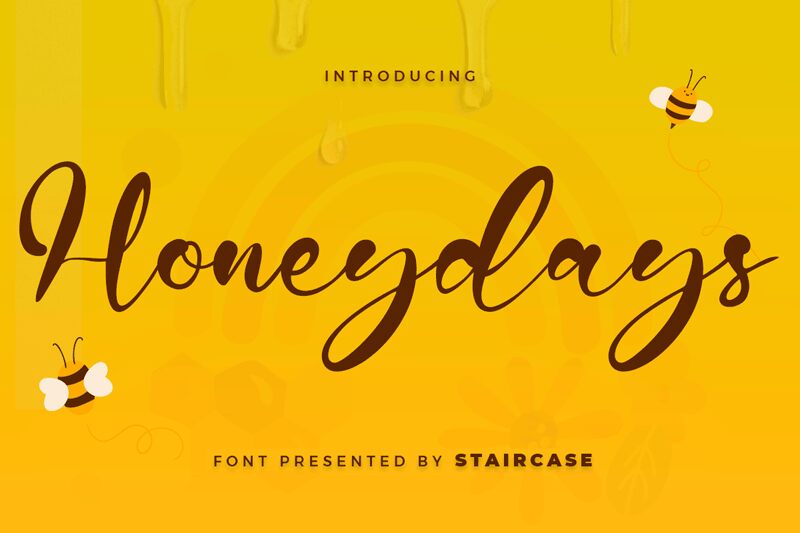
Honeydays
Honeydays is a stunning semi-light font by Staircase Studio, crafted with a cool handwritten style that will add a touch of whimsy to any project. Its delicate curves lend an air of elegance and playfulness, making it perfect for everything from wedding invitations to children's books. With its effortless charm, Honeydays is versatile enough to suit any creative endeavor that requires a touch of softness and fluidity. Whether you're designing a logo or creating social media graphics, this font will help you make an impact with ease. Let Honeydays sweeten up your next project!